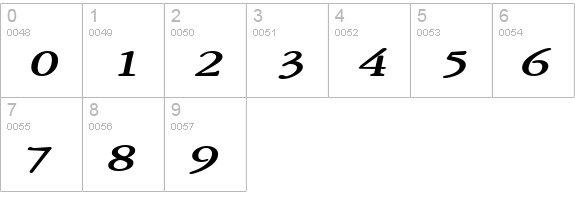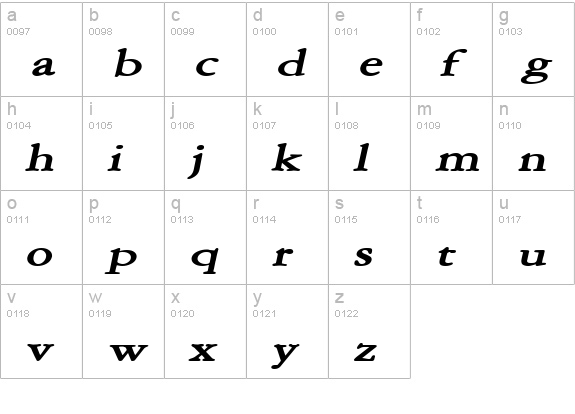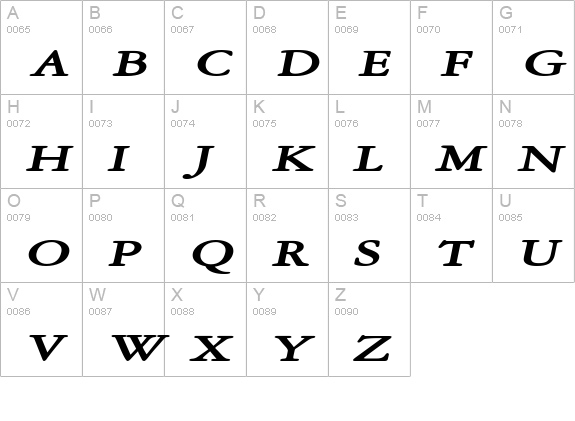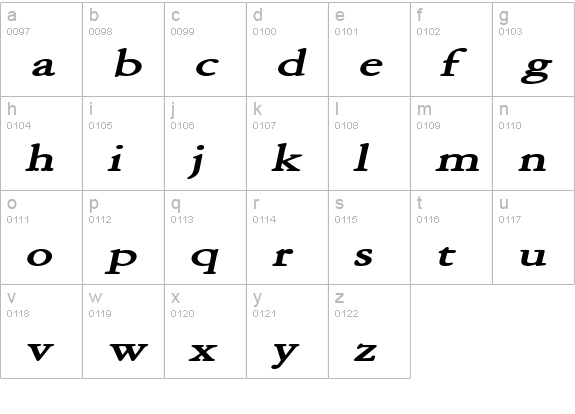
Amery Extended BoldItalic Font Details
Amery Extended BoldItalic is a distinctive, extended-width variant in the Amery typeface family \xE2\x80\x94 well suited to design and typography projects.
Amery Extended BoldItalic is a sophisticated and stylish font that exudes elegance and modernity. With its distinctive bold yet slanted design, this typeface is perfect for making a bold statement in any project. The elongated letterforms and italicized style add a touch of sophistication and flair to any design. What makes Amery Extended BoldItalic even more appealing is that it is available for free download at FontsMarket.com. This means you can easily access this stunning font and use it in your projects without any hassle. Whether you're working on a branding project, poster design, or website layout, Amery Extended BoldItalic is sure to elevate your work and make a lasting impression. Download Amery Extended BoldItalic for free today at FontsMarket.com and add a touch of elegance and style to your designs.